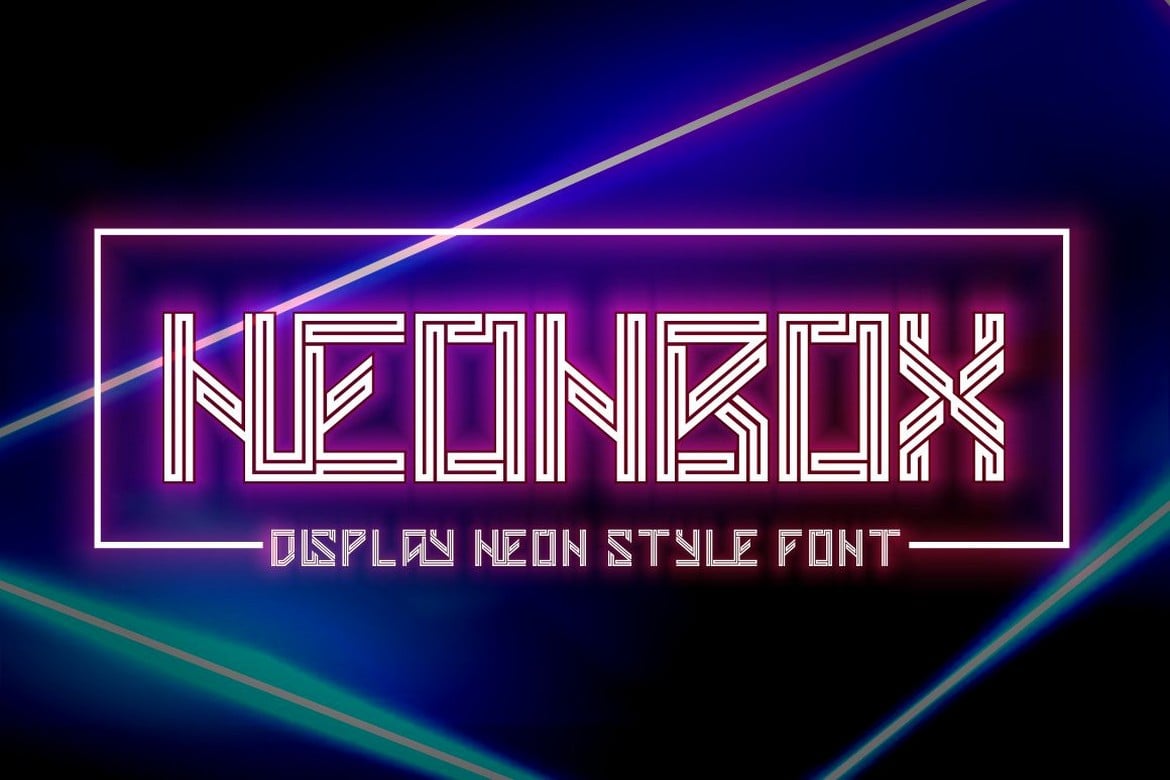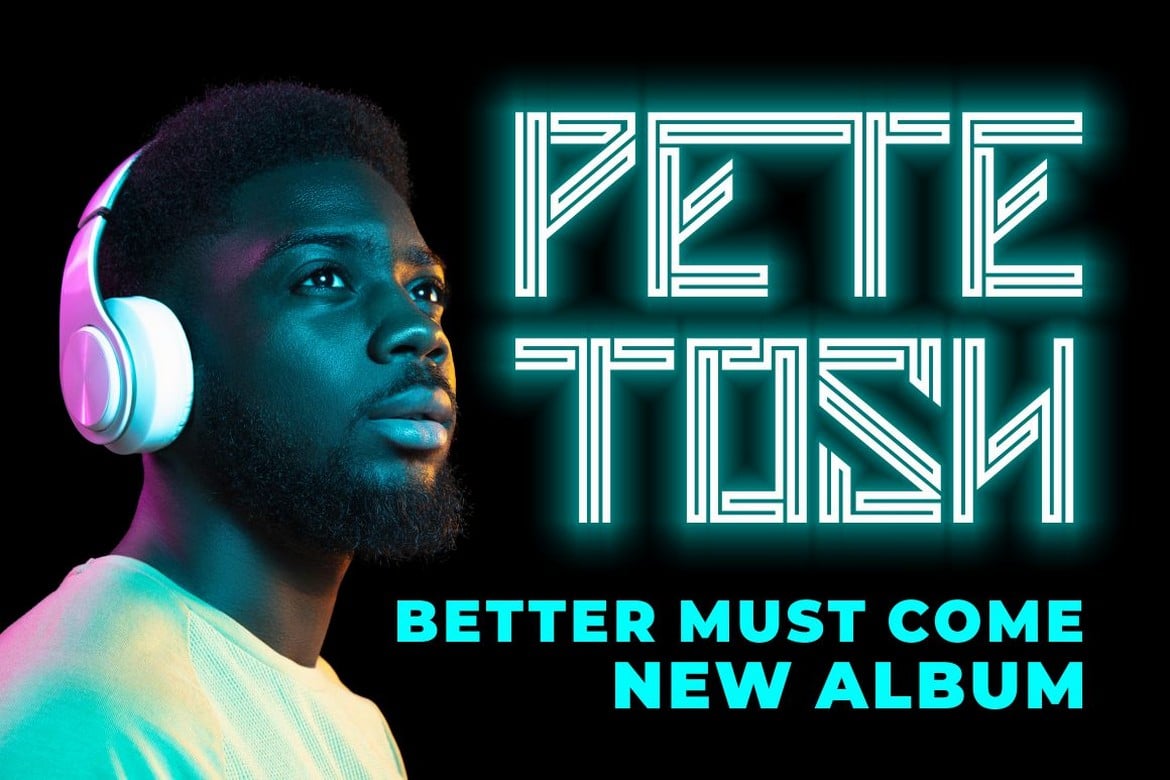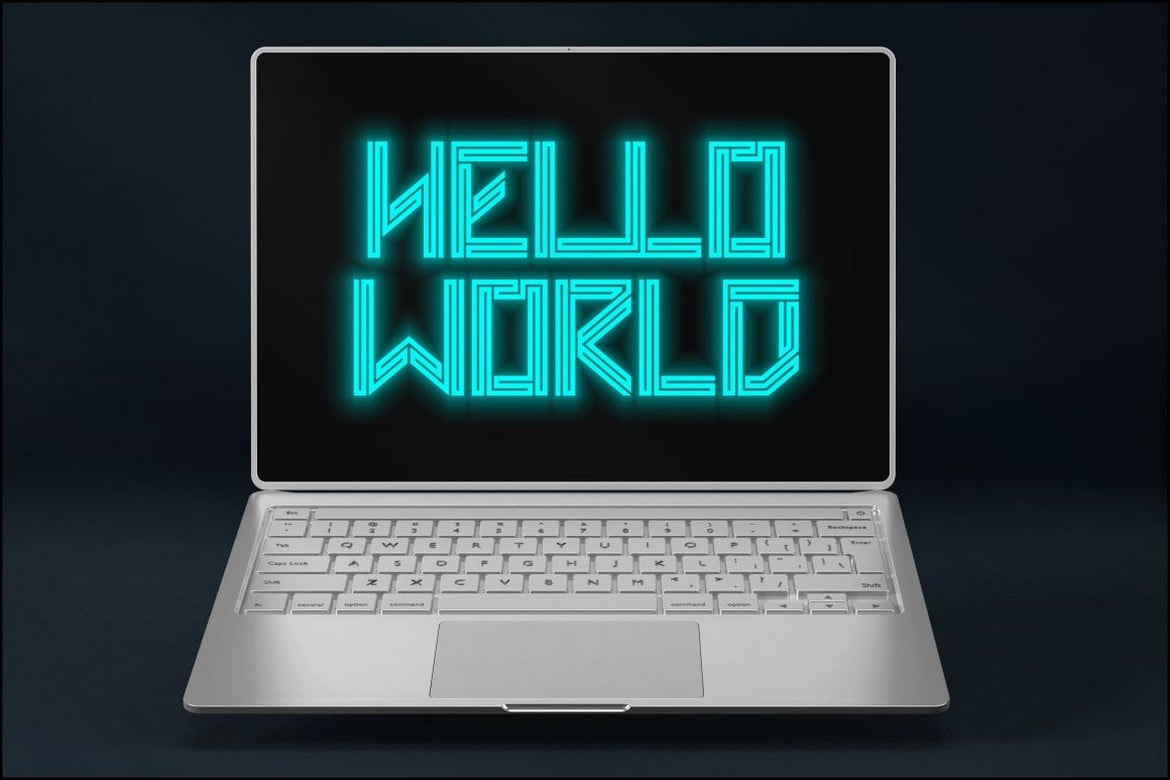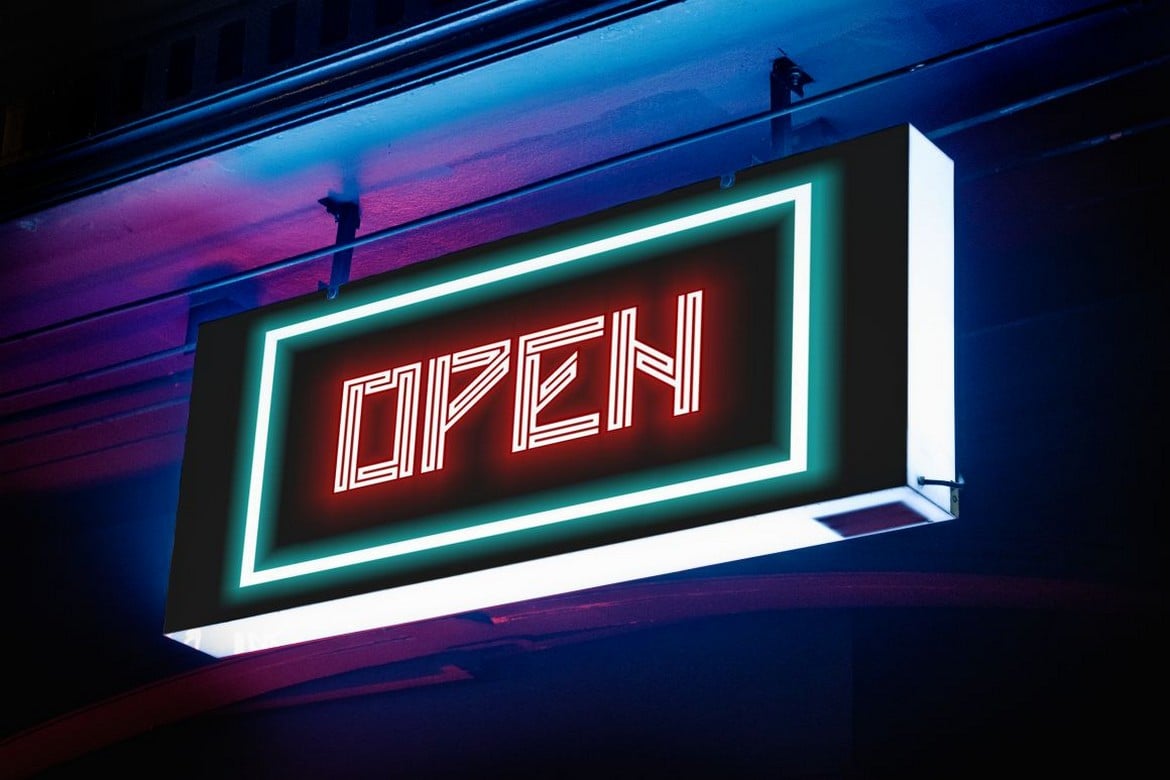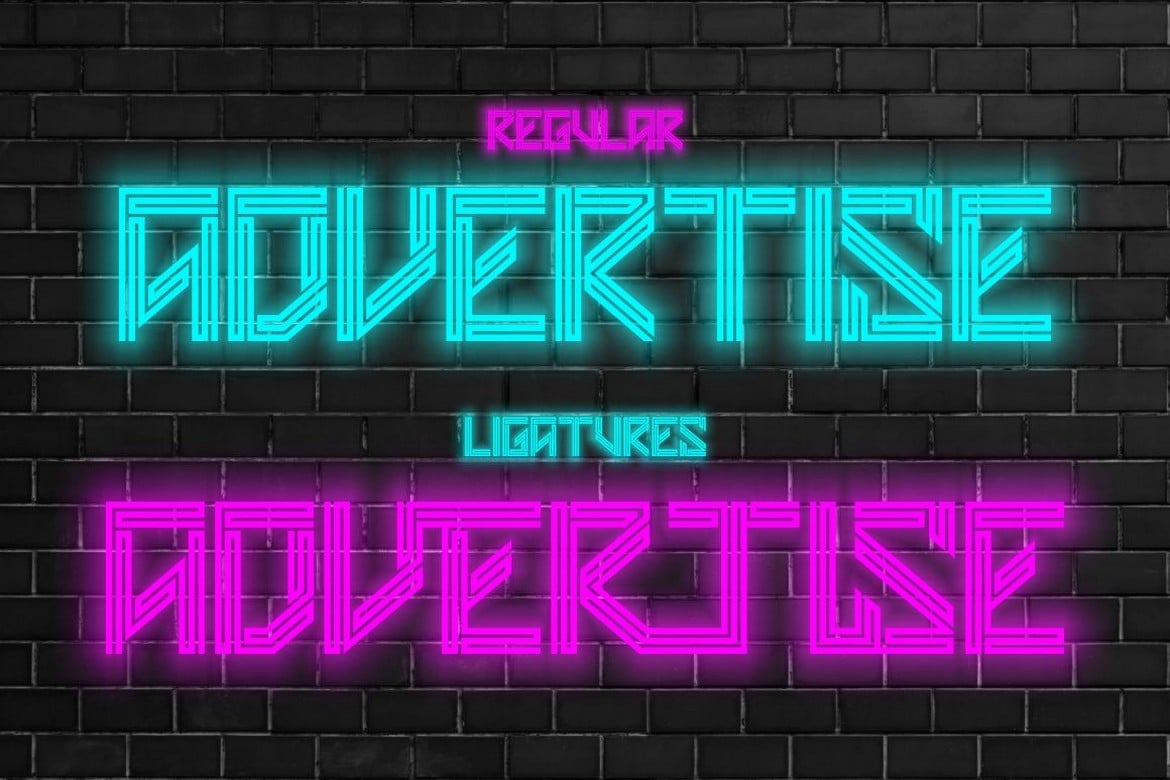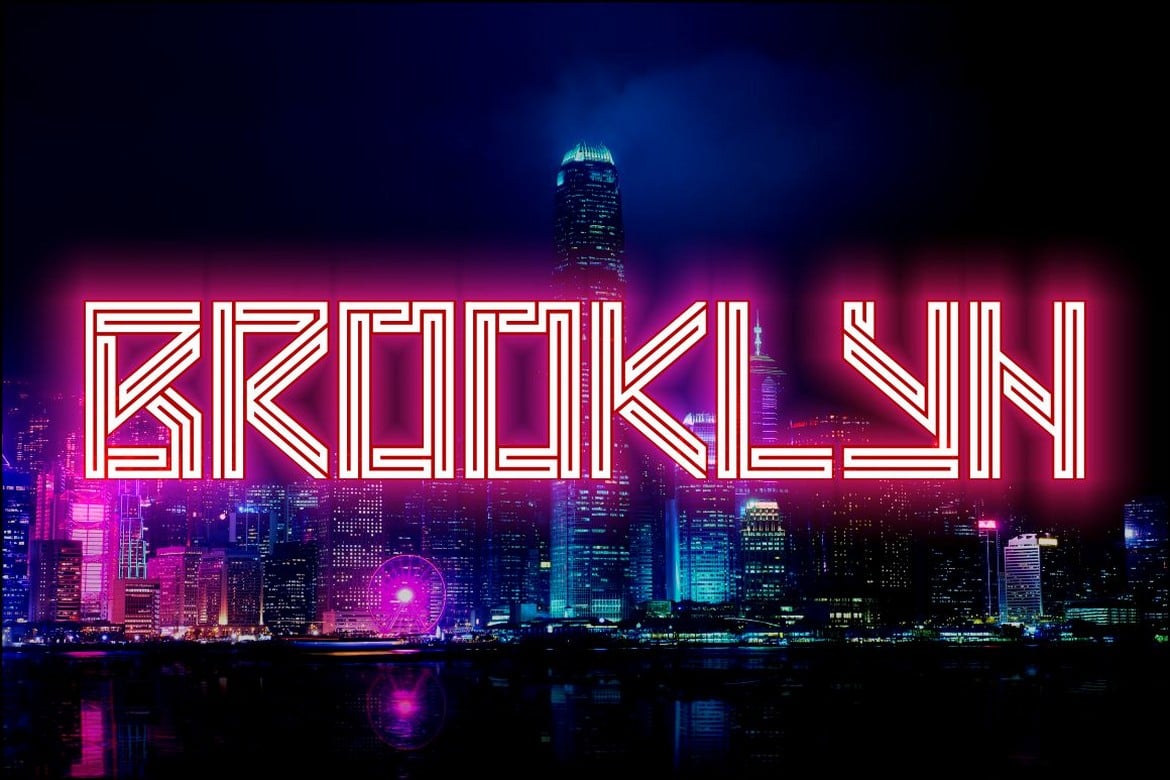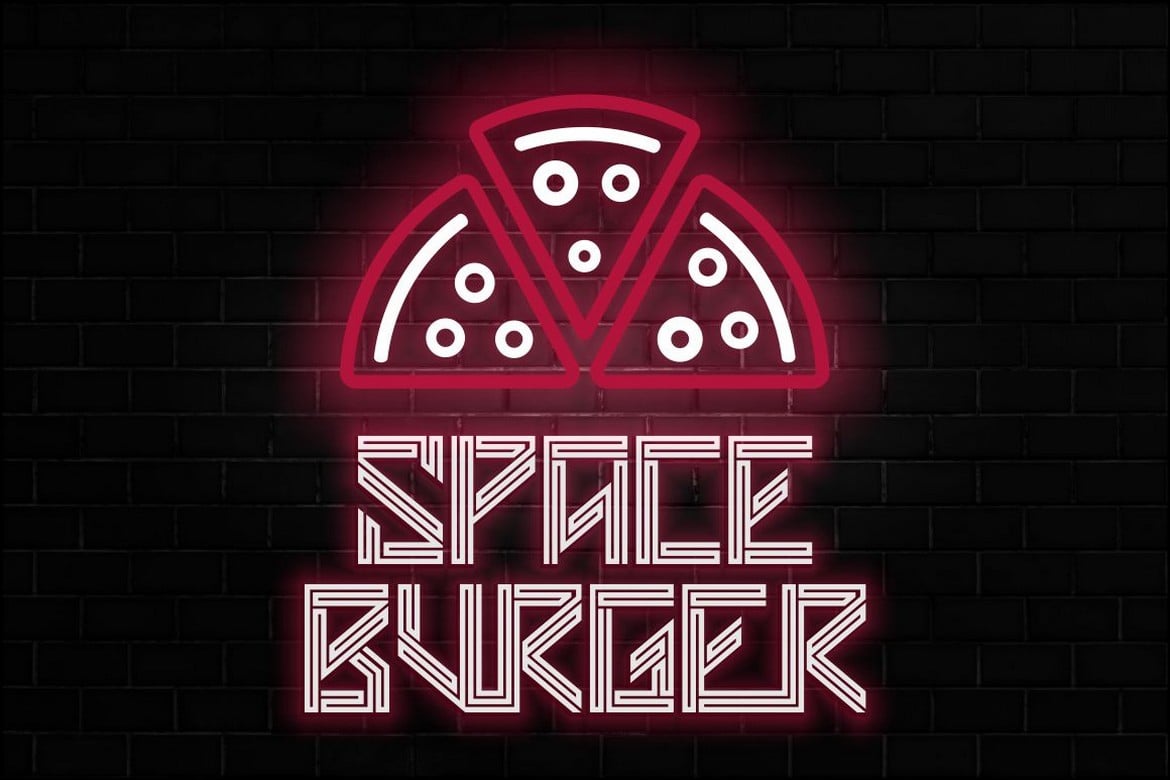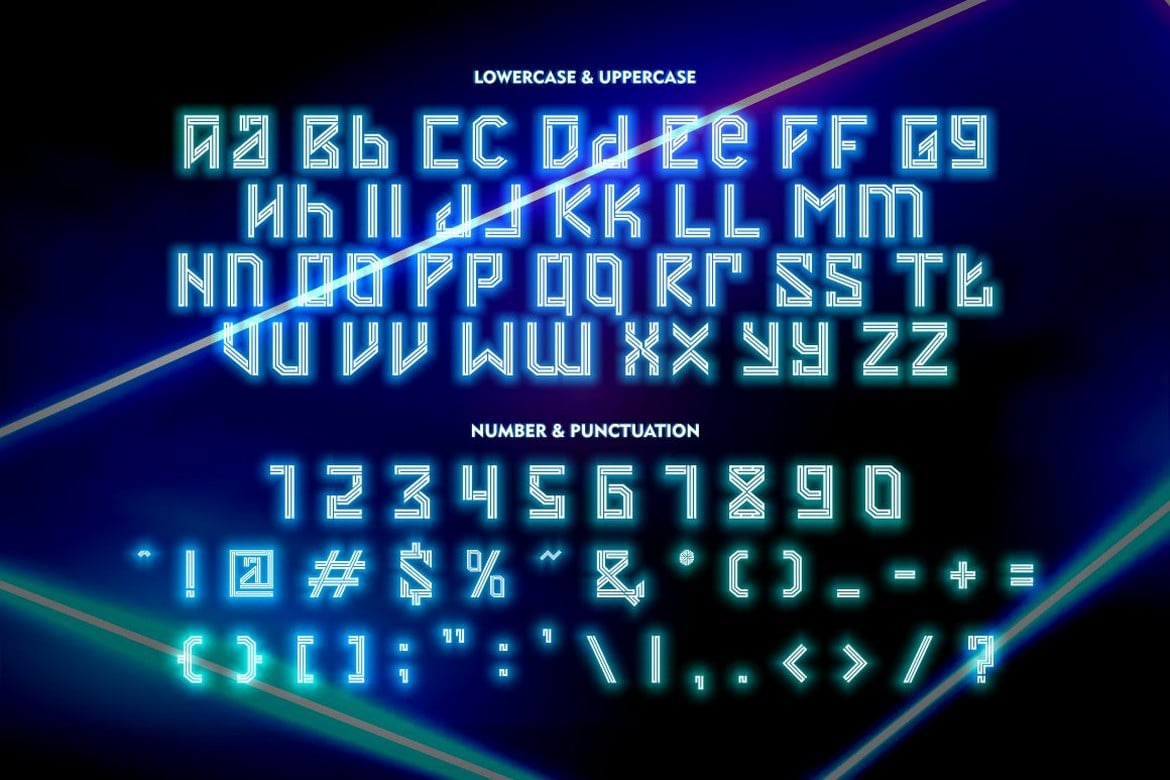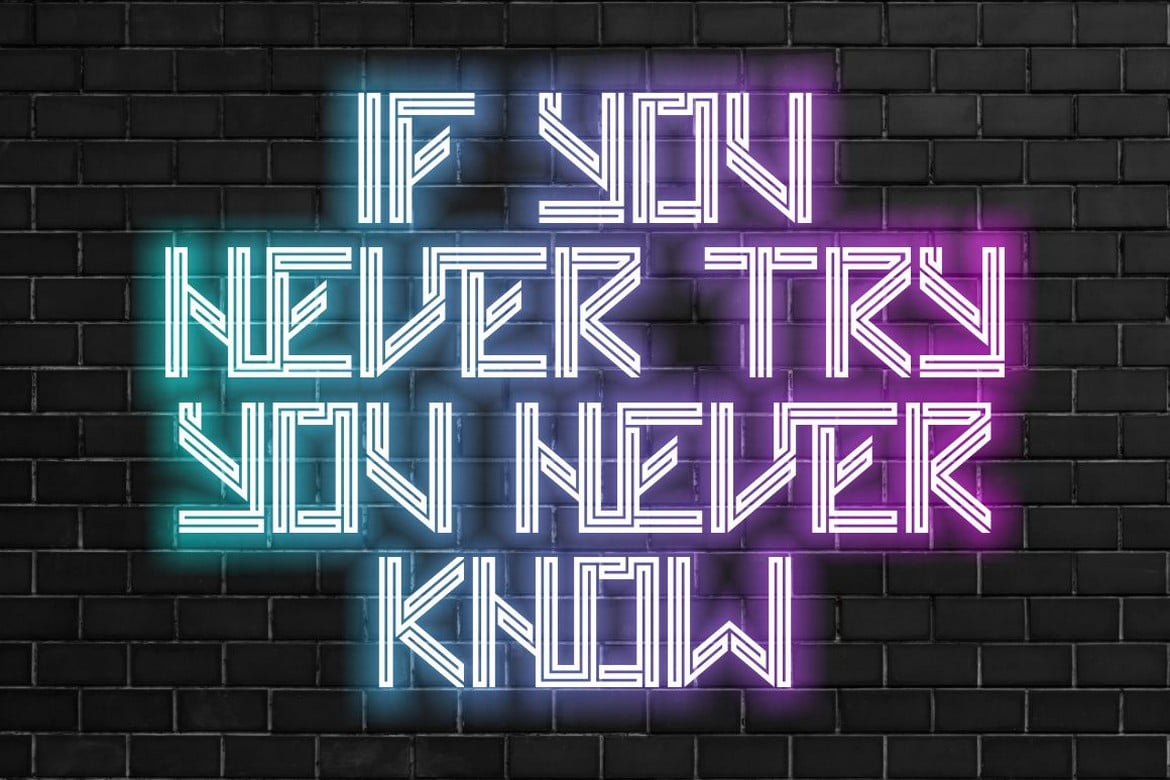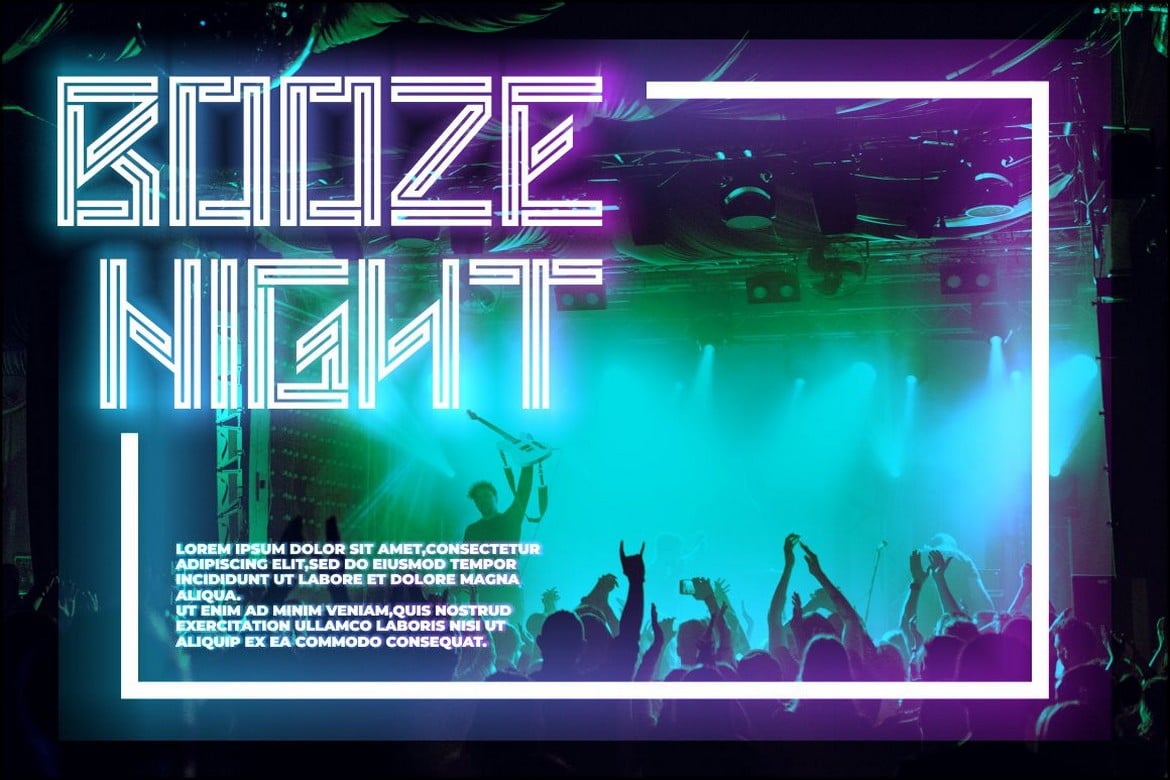
Neonbox – Display Neon Style Font
Introducing a new Futuristic Display Typeface Called “Neonbox”. Inspired from Modern Style, Digital, Neon Light, Futuristic Neon Art.
Neonbox best uses for Logo, cover, poster, branding, UI, Titles, and many more. Neonbox is also support multi language.